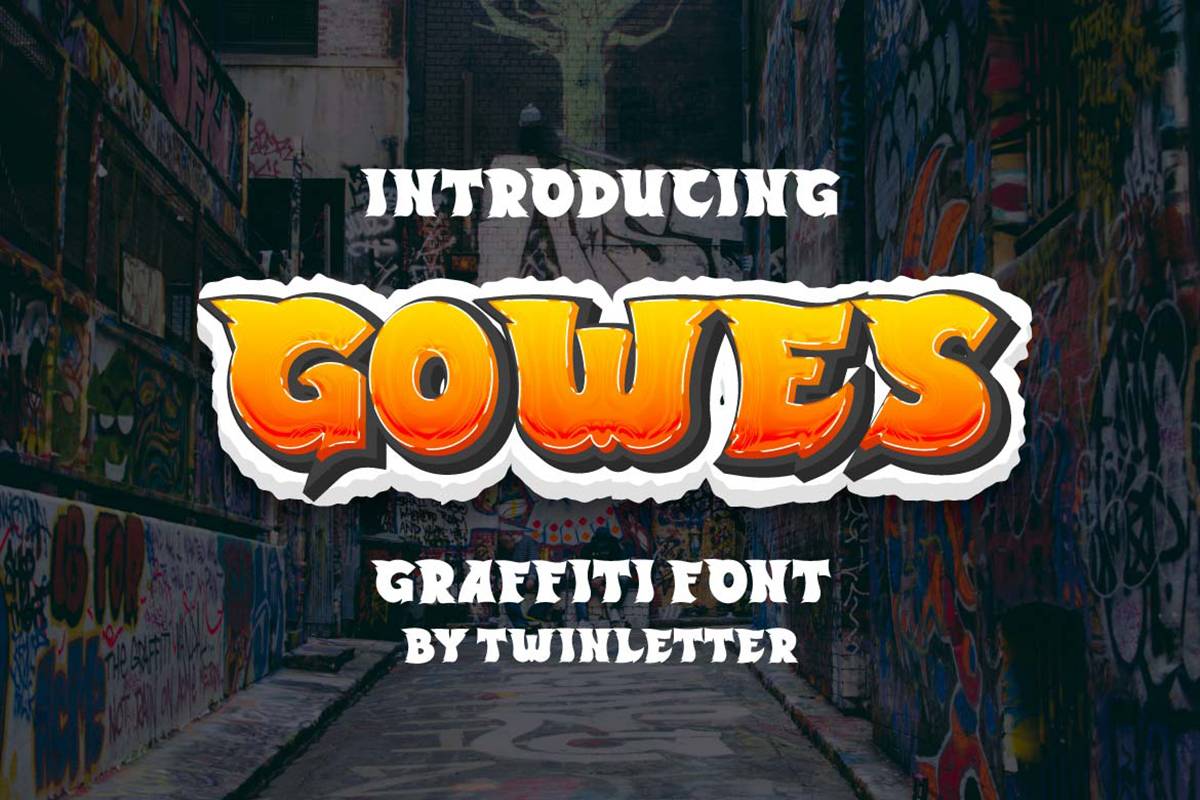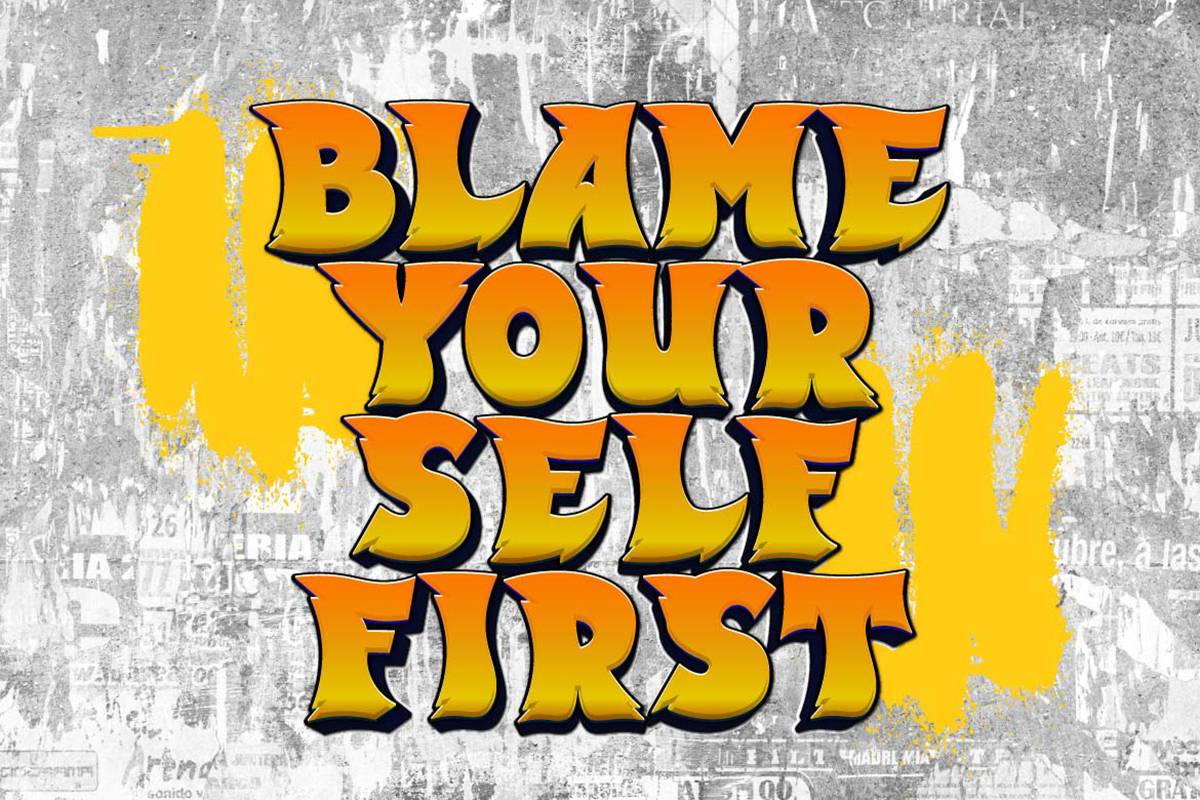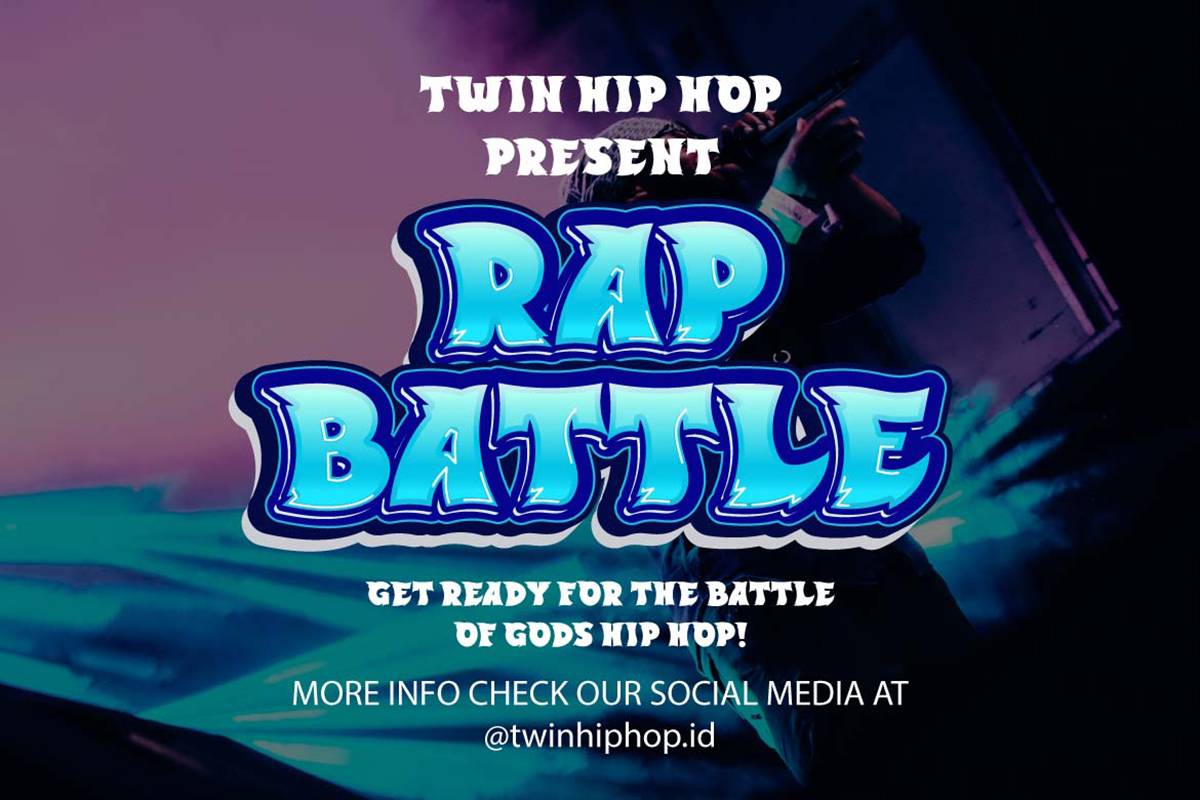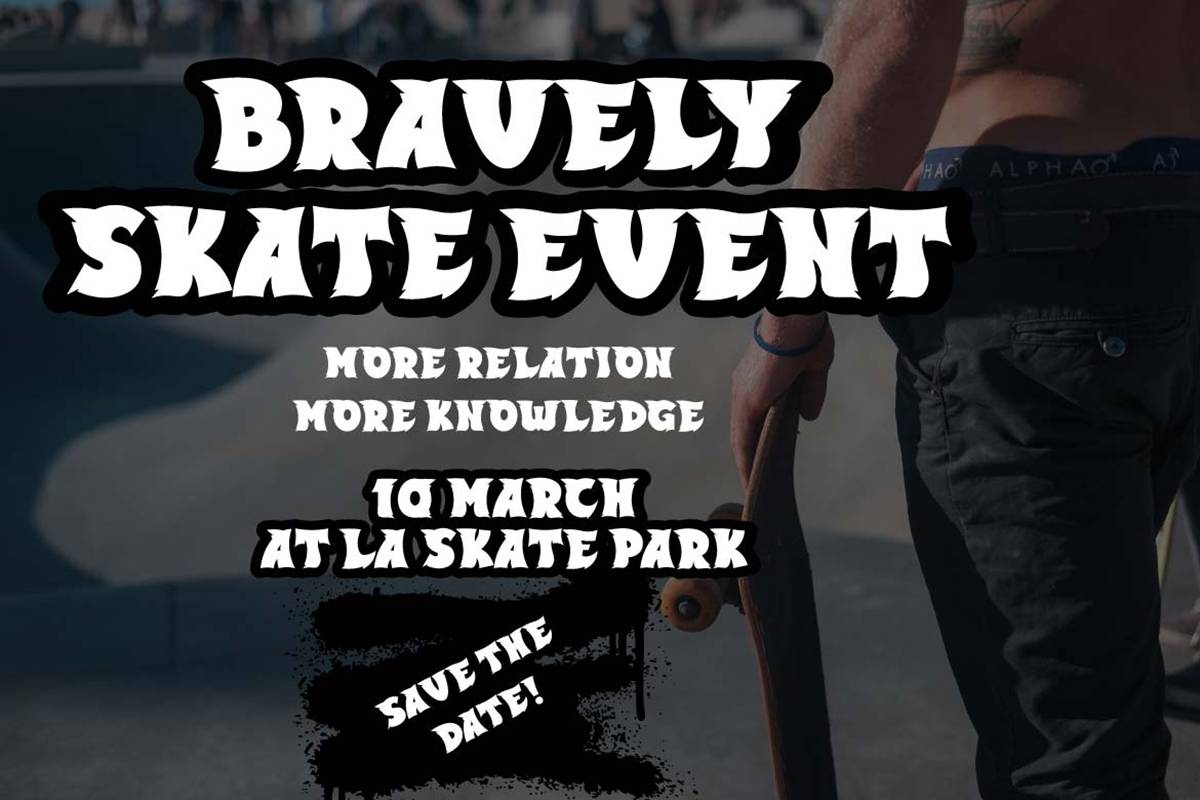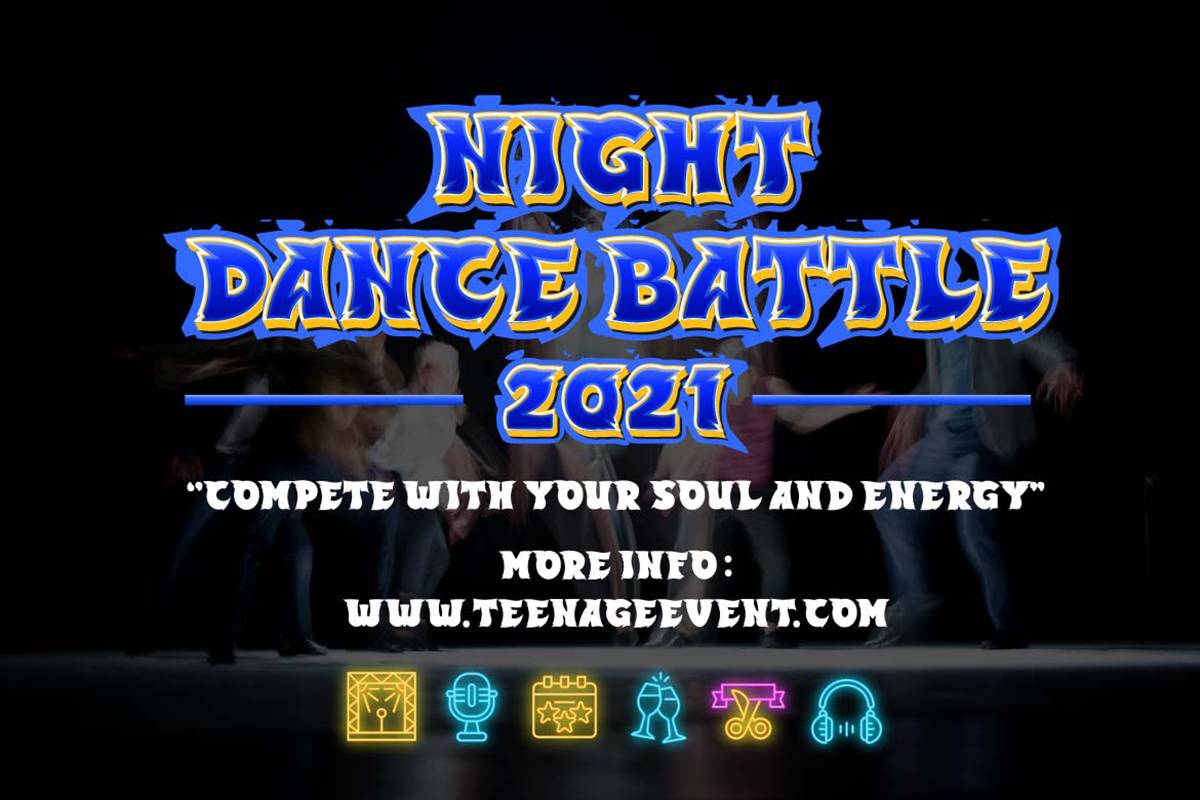
Gowes is a bold, quirky display font with a playful, pocket-style design that features heavy, thick strokes and sharp, geometric edges. Its all-caps letterforms convey a fun and energetic personality, making it perfect for eye-catching headlines, logos, and branding that aim to stand out with a unique and lively vibe. This font works well where bold impact and readability in a creative context are essential.
Gowes Font
About Gowes Font